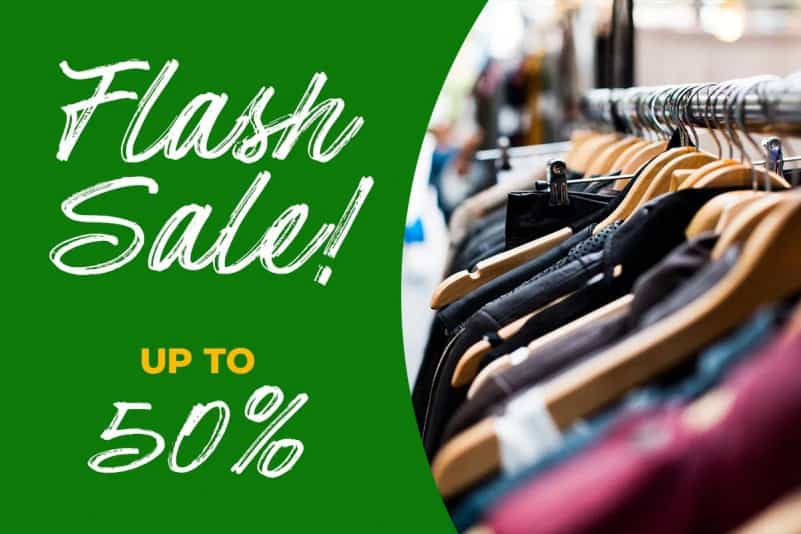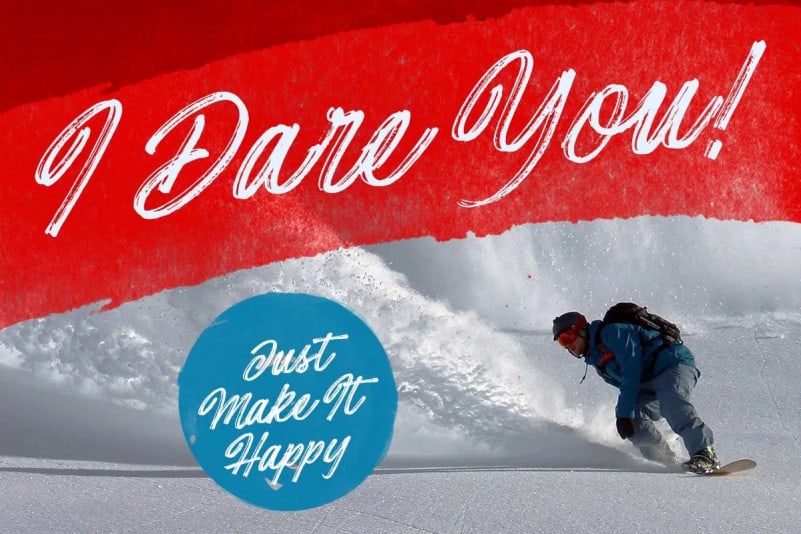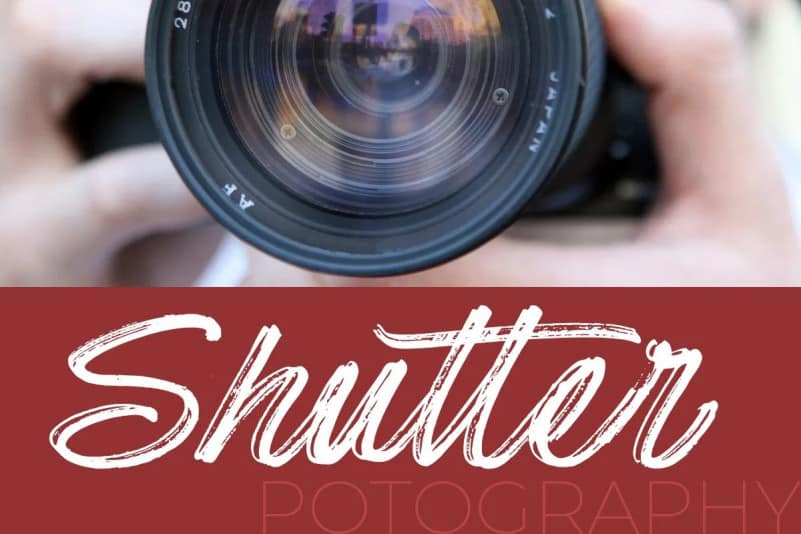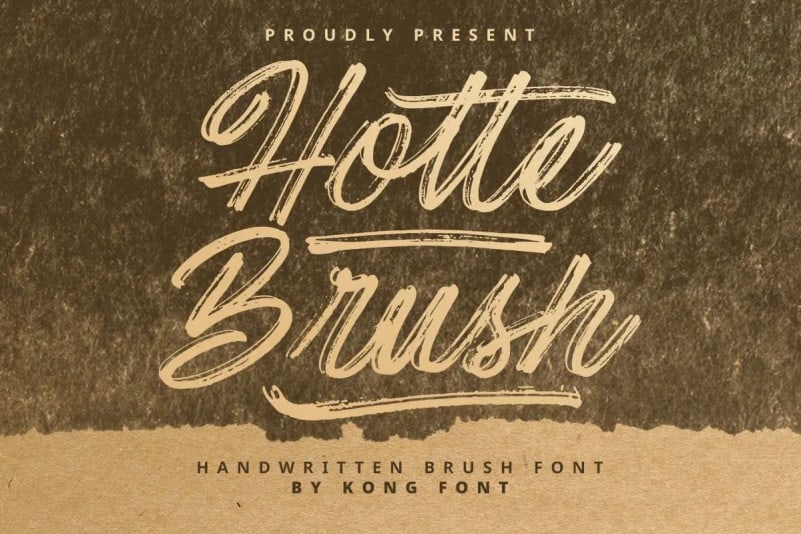
Hotte Brush Font
Hotte Brush Font is a casual dry brush typeface with a multitude of letter variations to make that perfect and unique design. This is perfect for use in title designs such as clothing, invitations, title books, stationery designs, quotes, branding, logos, greeting cards, t-shirts, packaging designs, posters, and more.
Hotte Brush Font includes a complete set of uppercase and lowercase letters, as well as multi-language support, numbers, punctuation, ligatures, alternatives and extra swash.